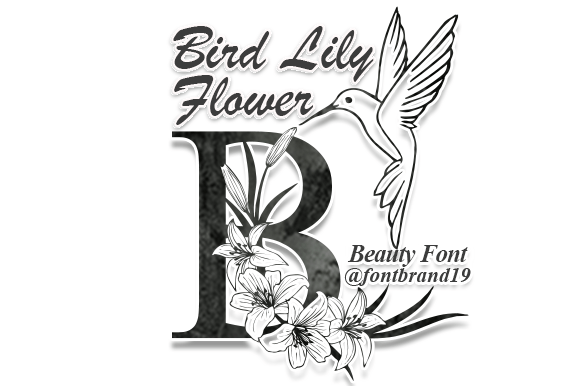
Discover the Magic of Bird Lily Flower Font
Have you ever been browsing through a beautifully designed wedding invitation and felt a rush of inspiration? You know, that moment when you think, “Wow, I wish I could create something that lovely!” That’s exactly what happened to me when I stumbled upon the Bird Lily Flower Font. Its elegant ornaments and authentic feel made me fall in love at first sight.
Bird Lily Flower Font is a stunning decorative font designed to help you create gorgeous wedding invitations, beautiful stationery art, eye-catching social media posts, and cute greeting cards. Its unique charm and versatility make it a valuable asset for designers who want to add a touch of elegance to their projects.
Whether you’re a seasoned designer or just starting out, the Bird Lily Flower Font is sure to become your new favorite tool. Its beauty and functionality make it a must-have for anyone looking to take their designs to the next level.
Bird Lily Flower Font Key Features
- Unique Characteristics: Delicate, hand-drawn illustrations of flowers, making it ideal for wedding invitations, garden-inspired designs, and nature-themed projects.
- Font Style: Script, Casual, and Handwritten, offering a range of styles to suit different design needs.
Design Review: Bird Lily Flower Font
The Bird Lily Flower Font is a unique and visually appealing choice for any design project. ✨ Its floral theme and elegant script style make it perfect for creating a whimsical or vintage vibe. The font’s irregular shapes and organic feel add a touch of personality to any text, making it stand out from more traditional fonts.
One of the standout features of the Bird Lily Flower Font is its versatility. ✨ It can be used for a variety of projects, from wedding invitations and baby shower decorations to branding and packaging design. The font’s flexibility also makes it a great choice for designers who want to add a creative twist to their work.
While the Bird Lily Flower Font is a great choice for many projects, there are some limitations to consider:
- ⚠️ The font may be difficult to read in small sizes or at a distance, due to its intricate details and irregular shapes.
- ⚠️ The font may not be suitable for projects that require a more modern or minimalist aesthetic, as its ornate design may clash with these styles.
- ⚠️ The font may require additional design elements, such as illustrations or graphics, to enhance its visual impact.
Overall, the Bird Lily Flower Font is a beautiful and unique choice for designers who want to add a touch of elegance and whimsy to their work. While it may have some limitations, its versatility and visual appeal make it a great addition to any design library.
Use the Bird Lily Flower Font for wedding invitations, baby shower decorations, or any other occasion that requires a touch of elegance.
Combine the font with other floral elements to create a cohesive and beautiful design.
Experiment with different font sizes and colors to add depth and visual interest to your design.
Baby shower decorations and invitations
Floral-themed posters and prints
Personalized greeting cards and gift tags
Alternatives to Bird Lily Flower Font
Pacifico is a beautiful script font that can be used for invitations, wedding stationery, and other formal events. It features a flowing and elegant design, making it perfect for adding a touch of sophistication to any design. Compared to Bird Lily Flower Font, Pacifico has a more refined and polished look, while Bird Lily Flower Font has a more whimsical and playful feel.
Great Vibes is a modern script font that is perfect for creating a fun and energetic vibe in your designs. It features a unique and quirky design, making it ideal for use in social media graphics, advertisements, and other promotional materials. Compared to Bird Lily Flower Font, Great Vibes has a more modern and edgy look, while Bird Lily Flower Font has a more classic and vintage feel.